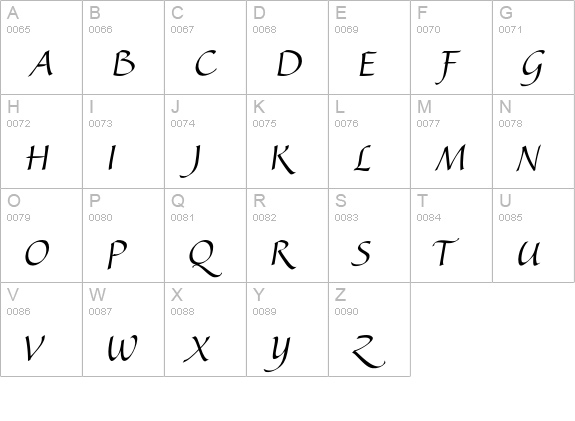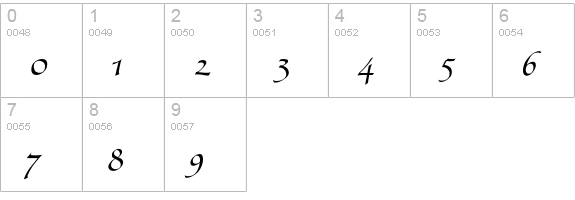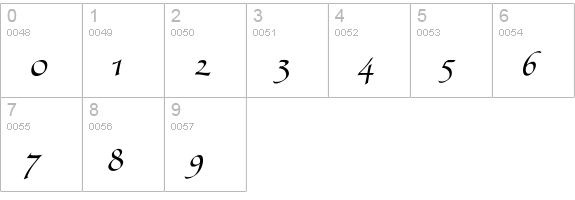
Boscribe Std Font Details
Boscribe Std is a modern and sophisticated font that exudes elegance and professionalism. With its clean lines and sleek design, this versatile typeface is perfect for a wide range of design projects, from branding to editorial layouts. The font features a contemporary style that is both timeless and on-trend, making it a great choice for any designer looking to make a statement. One of the best things about Boscribe Std is that it is completely free to download. You can easily access this stunning font at FontsMarket.com, where you can download it for use in both personal and commercial projects. Whether you're creating a logo, designing a website, or working on a printed piece, Boscribe Std is sure to elevate your design and make a lasting impression. Don't miss out on this fantastic opportunity to enhance your work with this beautiful and free font.